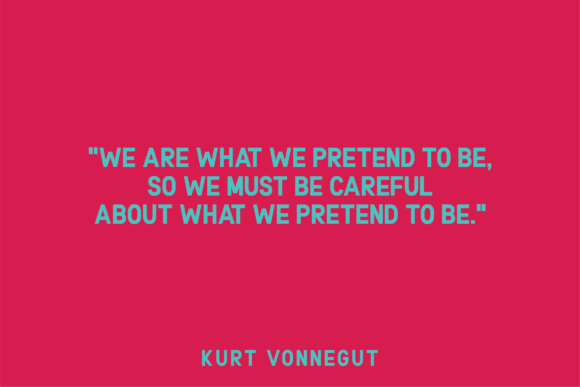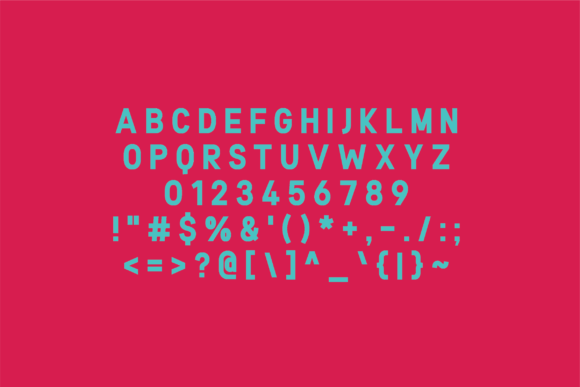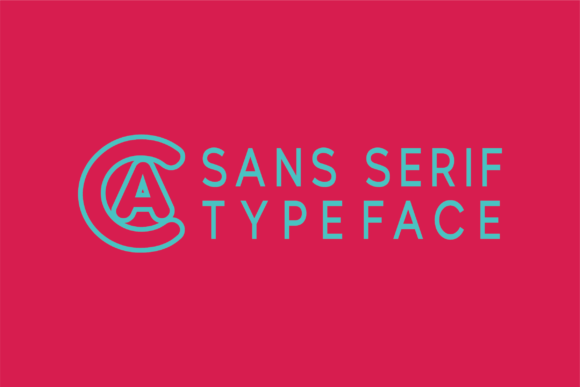
Introducing Felicity Font: Elevate Your Designs with Modern Elegance
Are you on the hunt for a font that embodies versatility, modernity, and class? Look no further than Felicity Font, a stunning sans serif typeface that is perfect for a wide range of design applications. From logos and weddings to invitations, quotes, advertisements, and more, Felicity Font is the ideal choice for designers and crafters seeking to add a touch of sophistication to their creative projects.
The Perfect Blend of Modernity and Elegance
Felicity Font boasts a sleek and contemporary design that is sure to capture the attention of your audience. Its clean lines, precise curves, and balanced proportions make it a joy to use in a variety of contexts. Whether you’re working on a logo, brochure, or social media graphic, Felicity Font’s modern aesthetic will help your design stand out from the crowd.
One of the most exciting aspects of Felicity Font is its incredible versatility. This font is suitable for a wide range of design applications, including:
- Logos: Create a lasting impression with a custom logo that showcases your brand’s personality and style.
- Weddings and Invitations: Add a touch of elegance to your wedding stationery, invitations, and other celebratory materials.
- Quotes and Typography: Use Felicity Font to create stunning typographic quotes, posters, and graphics that inspire and motivate.
- Advertisements: Grab the attention of your target audience with eye-catching ads that feature Felicity Font’s modern charm.
- Print and Magazines: Elevate your print materials, such as brochures, flyers, and magazine layouts, with Felicity Font’s crisp and clean aesthetic.
Bring Your Ideas to Life
Felicity Font is more than just a typeface – it’s a design catalyst that can help bring your most creative ideas to life. Whether you’re a seasoned designer or a crafty DIY enthusiast, this font is sure to inspire you to create something truly special. With Felicity Font, you can:
- Add a touch of sophistication: Infuse your designs with a sense of elegance and refinement that will leave a lasting impression.
- Experiment with new ideas: Try out fresh design concepts and explore new creative avenues with Felicity Font as your trusted companion.
- Stand out from the crowd: Use Felicity Font to differentiate your designs and make them more memorable in a crowded marketplace.
Why Choose Felicity Font?
So, what sets Felicity Font apart from other typefaces? Here are just a few reasons why designers and crafters love working with this amazing font:
- Unique and distinctive: Felicity Font offers a fresh and original take on the sans serif genre, making it perfect for designers seeking a unique look.
- Highly legible: With its clear and precise design, Felicity Font is incredibly easy to read, even at small sizes.
- Flexible and adaptable: This font can be used in a wide range of design applications, from digital graphics to print materials.